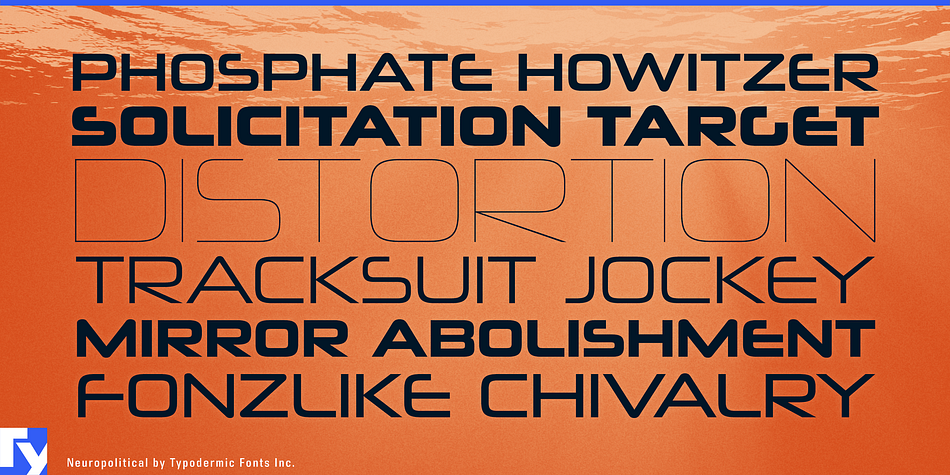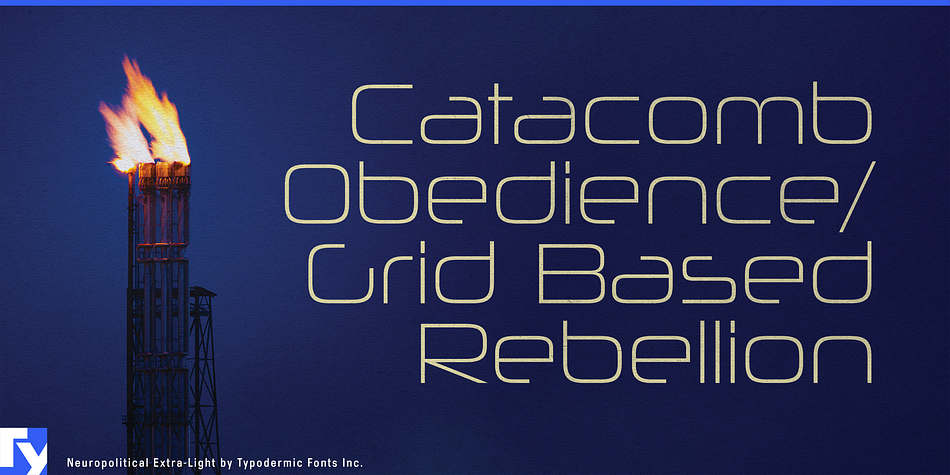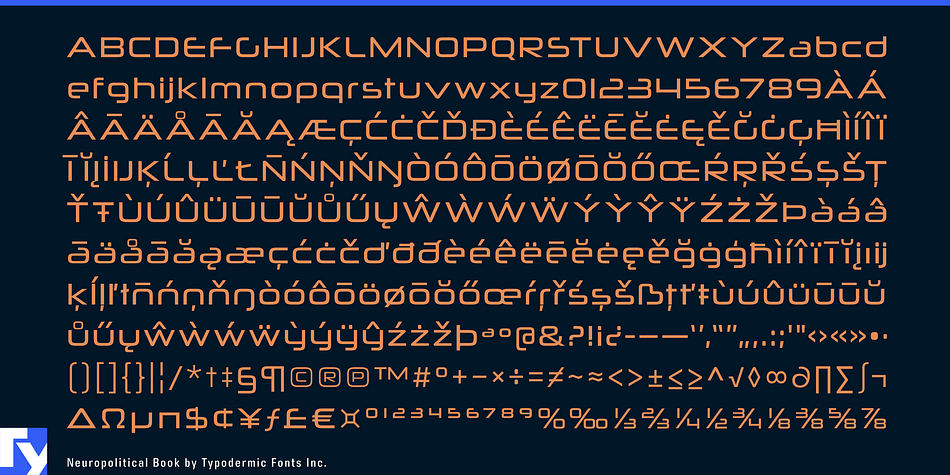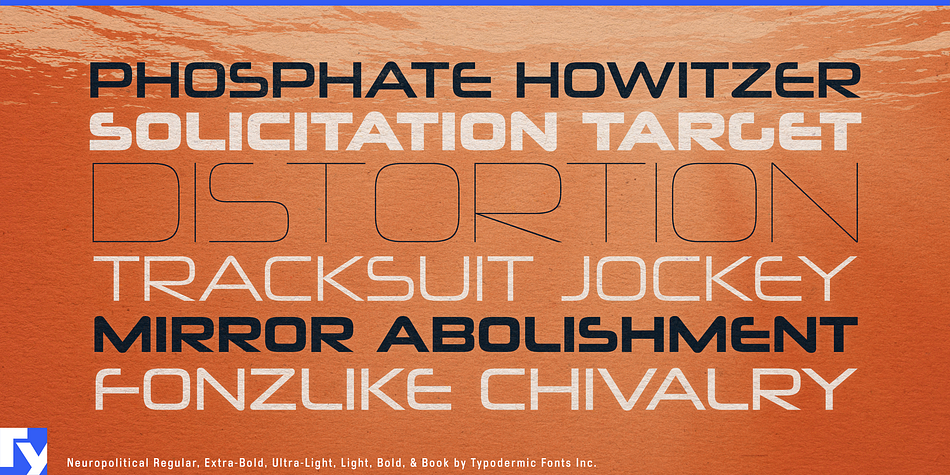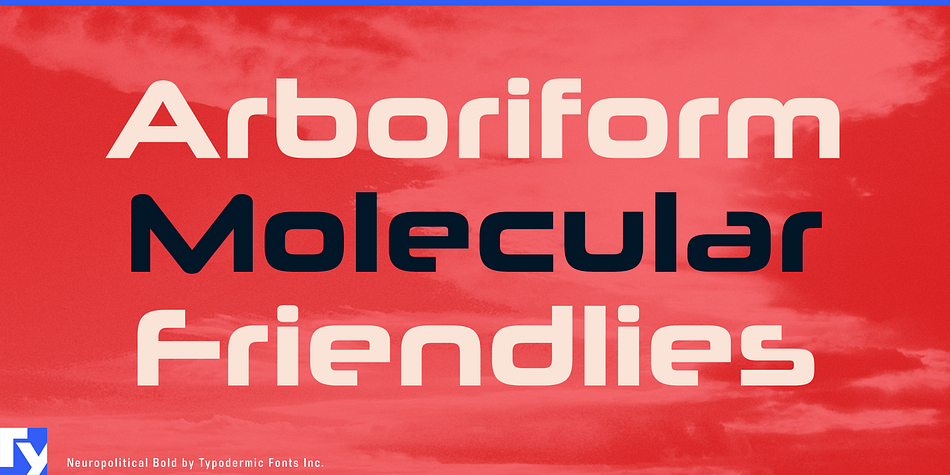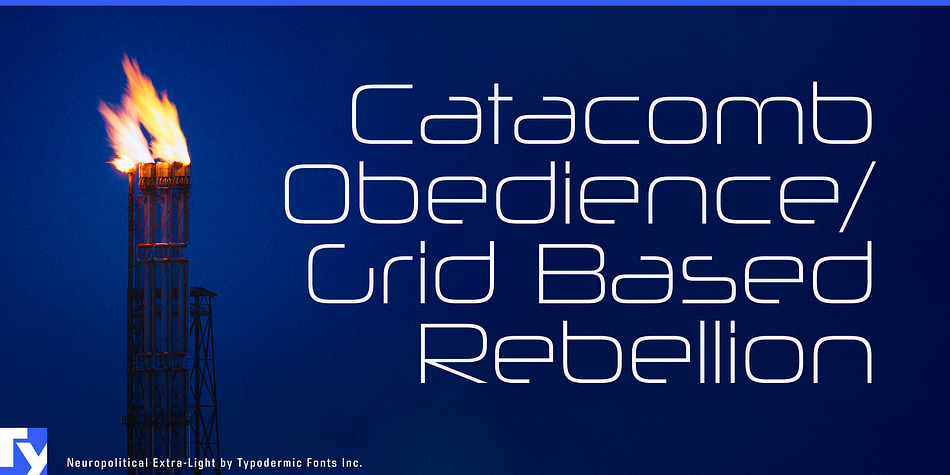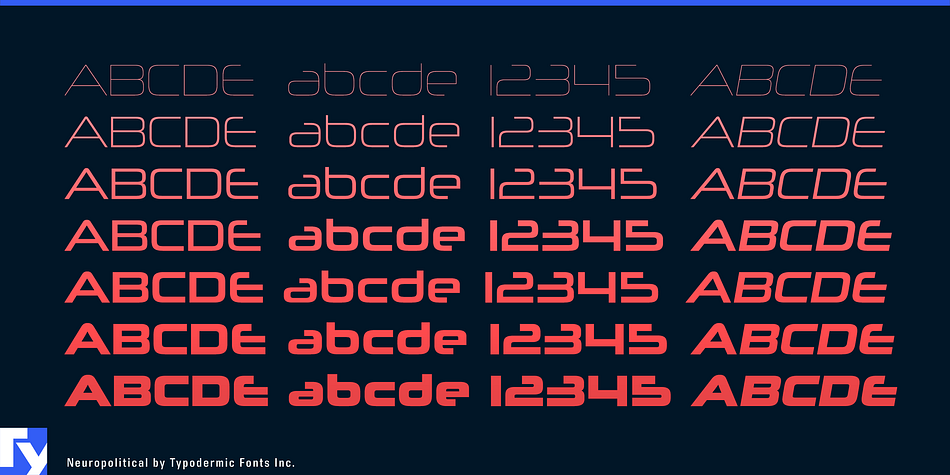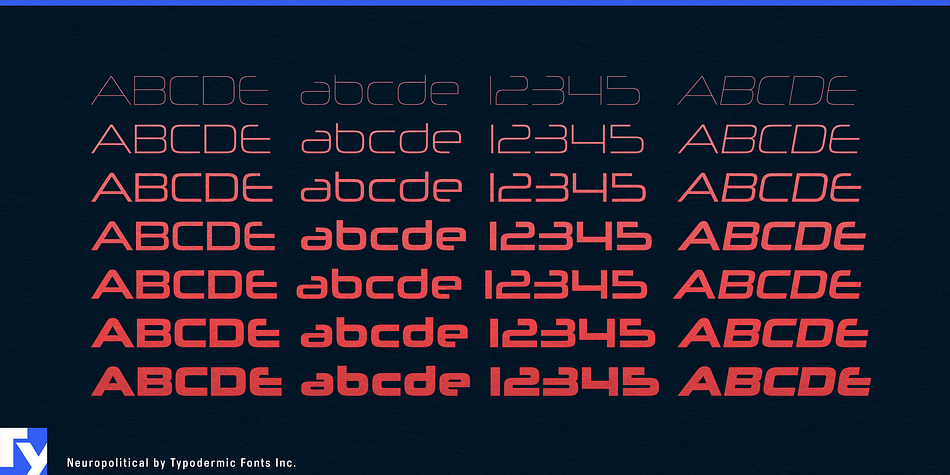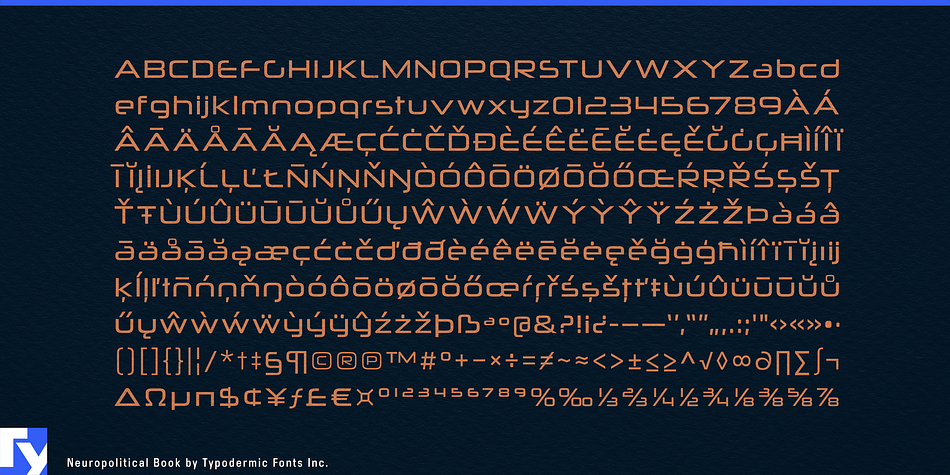
Neuropolitical is a display sans font family. This typeface has fourteen styles and was published by Typodermic Fonts Inc.
Neuropolitical started as a square capped variation of the Neuropol family. This wide, futuristic typeface comes in 7 weights plus italics. The desktop license for Neuropolitical regular is free.